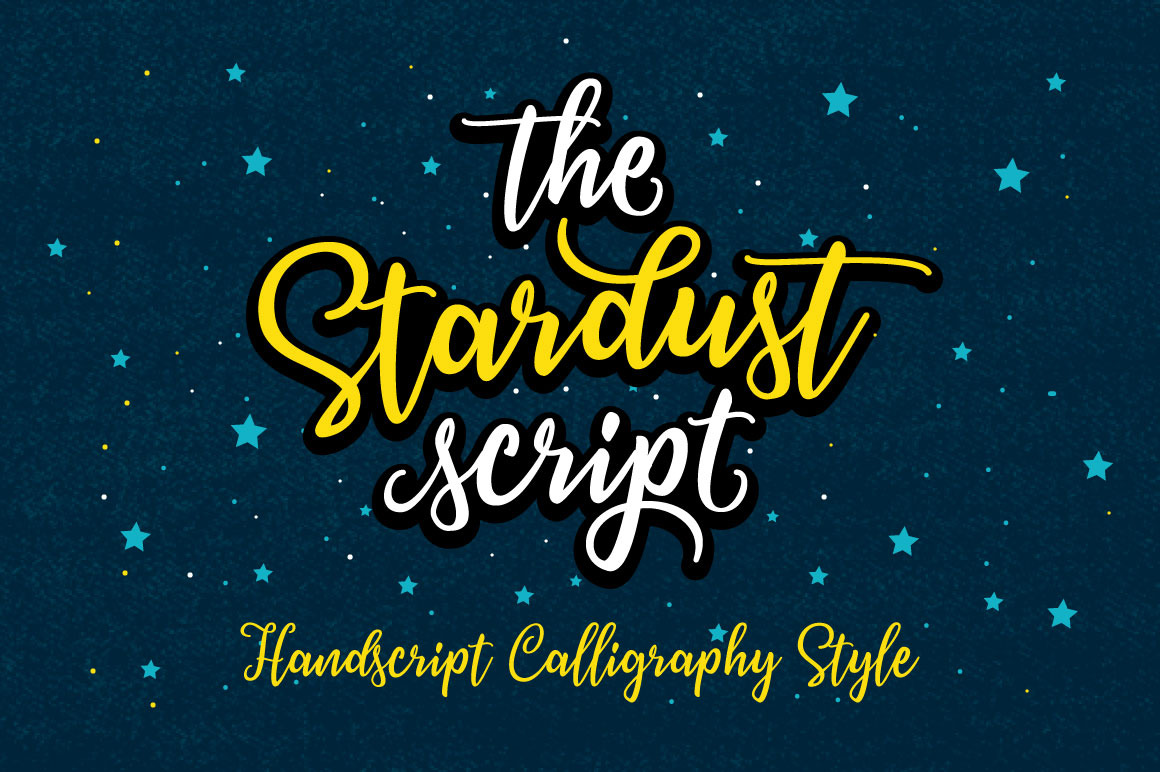
Stardust Script Typeface
Stardust Script Typeface is perfect for magical branding, celestial event invitations, dreamy wedding materials, fantasy book covers, mystical product packaging, enchanted jewelry catalogs, whimsical children's books, stargazing event posters, cosmic-themed restaurants, spiritual wellness centers, magical entertainment venues, and ethereal lifestyle brands.
What makes Stardust Script Typeface exciting is its celestial magic that captures the wonder and mystery of starlit nights through flowing letterforms that seem to dance across the cosmos with ethereal beauty. This enchanting typeface embodies the essence of dreams and cosmic wonder, combining graceful script movements with mystical elegance that resonates with audiences seeking magic, inspiration, and connection to the infinite beauty of the universe. The font's otherworldly character and shimmering quality create immediate fascination while maintaining the legibility essential for modern commercial applications. Its magical personality makes it perfect for brands that want to communicate wonder, transformation, and the enchanting power of dreams and celestial experiences.
The Stardust Script Typeface family includes regular and bold weights, featuring celestial alternates, magical ligatures, and starry decorative elements. The character set incorporates cosmic symbols, mystical numerals, and ethereal punctuation marks that enhance the font's celestial character and provide designers with comprehensive magical typography solutions for dreamy brand expressions.
Whether you're creating magical brand identities, designing celestial marketing materials, or developing dreamy communications, Stardust Script Typeface Free Download provides the cosmic enchantment your mystical projects require. This premium script font excels in applications where wonder and emotional connection are crucial for brand positioning and audience engagement in fantasy and spiritual markets. The font's celestial qualities work beautifully across packaging, event materials, and digital applications, making it an essential tool for designers creating memorable magical experiences. Entertainment venues and spiritual brands choose this font for its ability to communicate cosmic wonder while maintaining professional appeal and commercial viability. The comprehensive character support includes mystical symbols and celestial glyphs, expanding its versatility for global magical applications and multilingual mystical communications. Professional designers appreciate its perfect balance of ethereal beauty and functional readability, ensuring projects remain both magically compelling and practically effective. When you incorporate this exceptional script typeface into your magical communications, you're selecting a typography solution that celebrates cosmic wonder and dreamy inspiration, ensuring your brand connects with audiences seeking enchantment and spiritual experiences while maintaining the mystical credibility essential for success in fantasy entertainment and spiritual wellness industries that inspire people to believe in magic, follow their dreams, and connect with the infinite beauty and mystery of the cosmos.